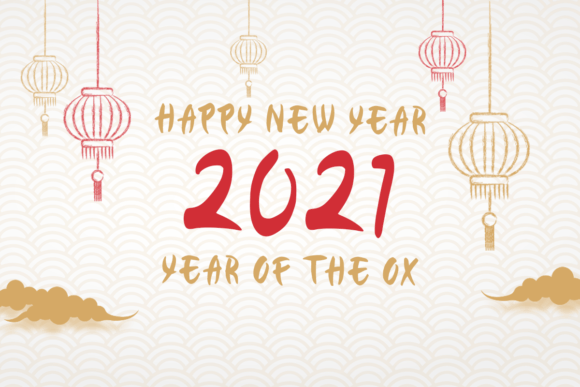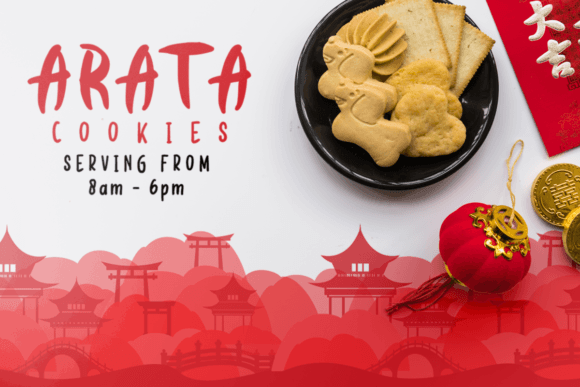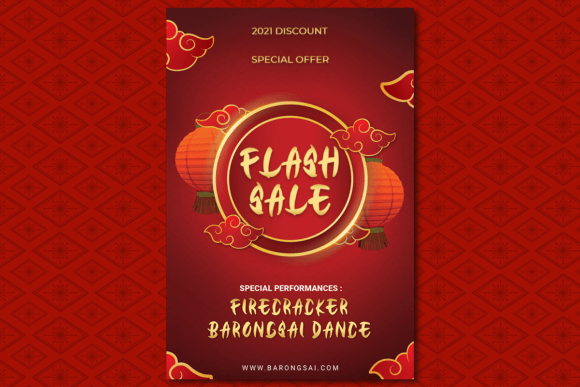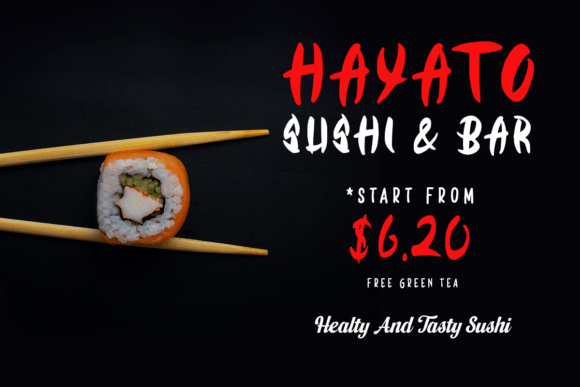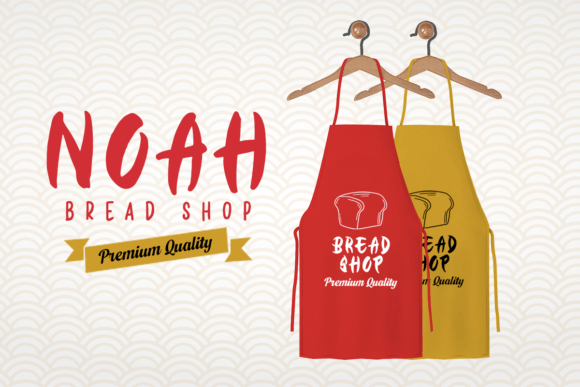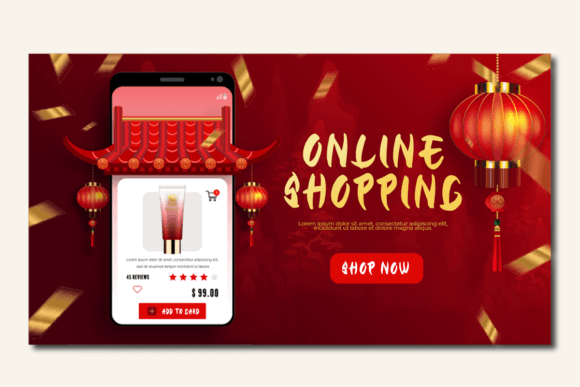
Introduction to China Town Font
China Town – a Modern Chinese Brush Font.
Inspired by beauty and feminine style very good for signature, stationery, logo, typography quotes, magazine or book covers, and website needs .
Key Features of China Town Font
Why Choose China Town Font?
China Town Font offers exceptional quality and versatility, making it a valuable addition to your design toolkit. Whether you’re creating for personal projects or commercial use, China Town Font delivers professional results.